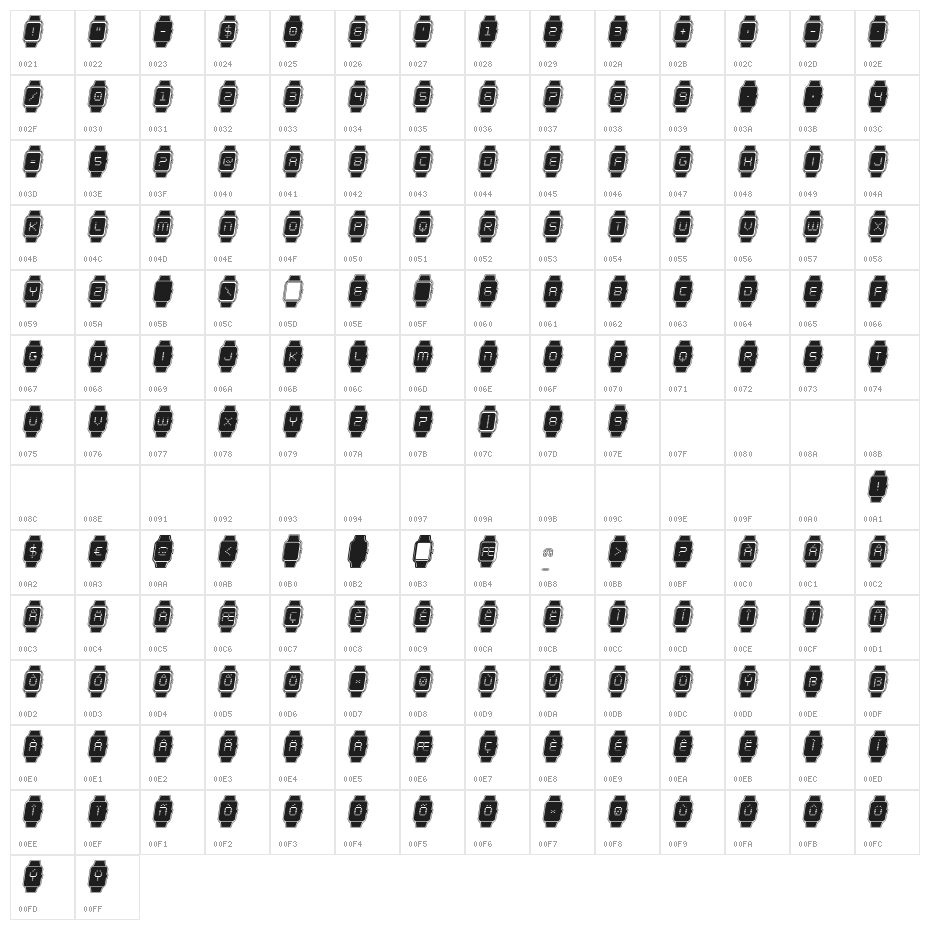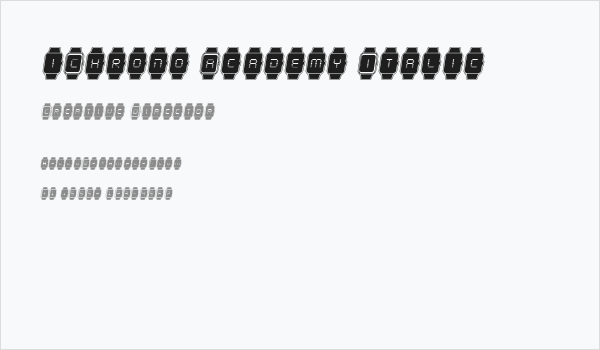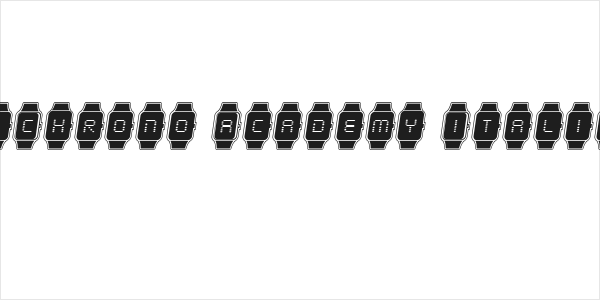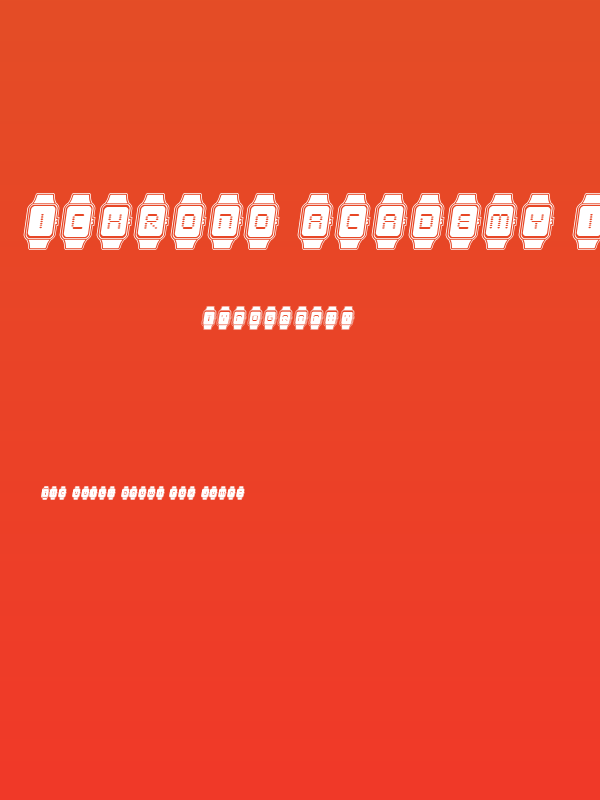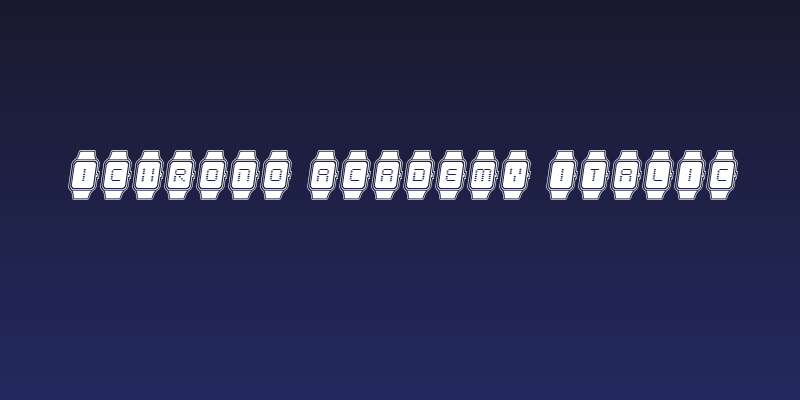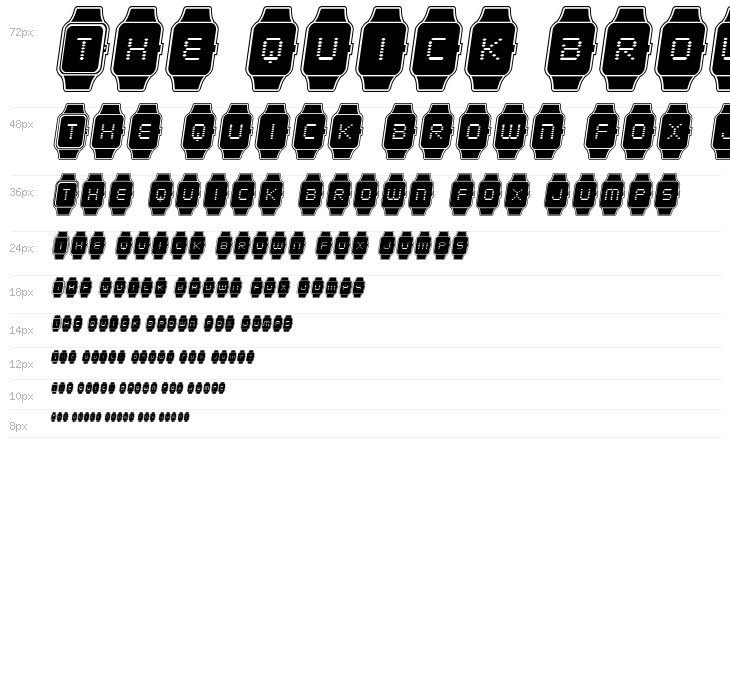
iChrono Academy Italic Font
iChrono Academy Italic Description
This font features a unique and futuristic design, reminiscent of digital watch displays. Each character is encased in a watch-like frame, giving it a distinct and modern appearance. The characters are composed of segmented lines, similar to those found in LED or LCD screens, which enhances its digital aesthetic. The font is highly stylized, making it ideal for projects that require a tech-savvy or retro-futuristic vibe. Its bold and structured form ensures readability while maintaining a strong visual impact.